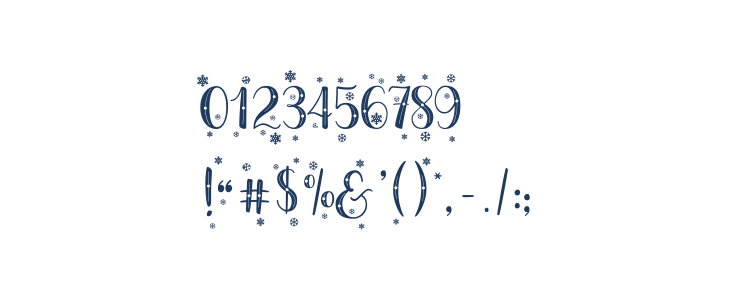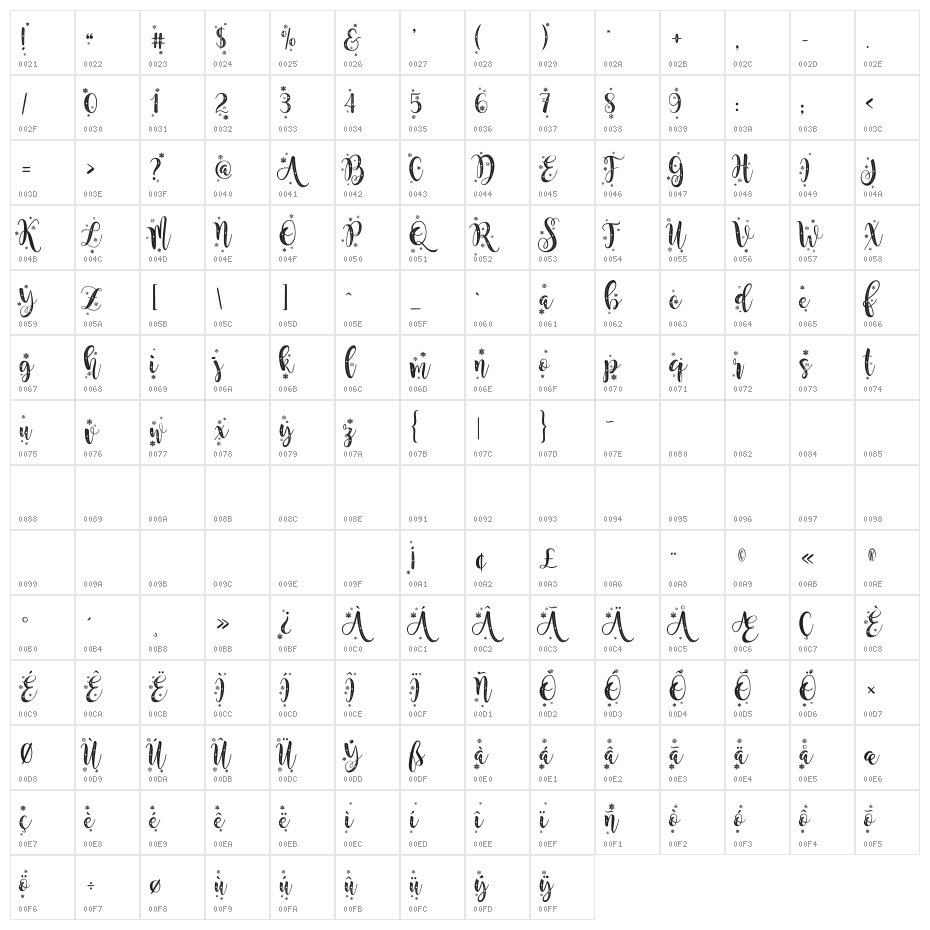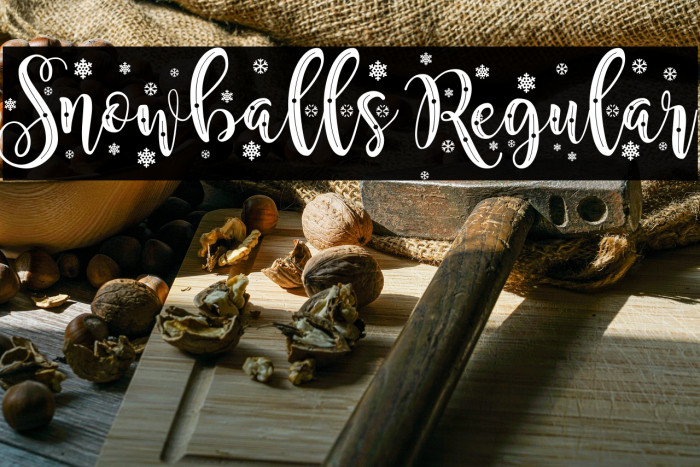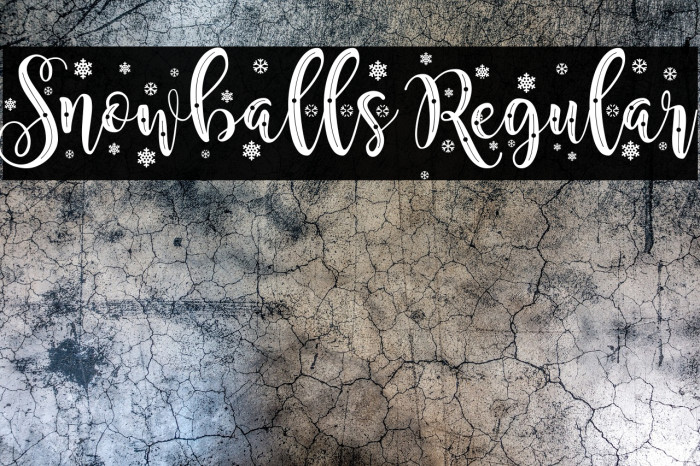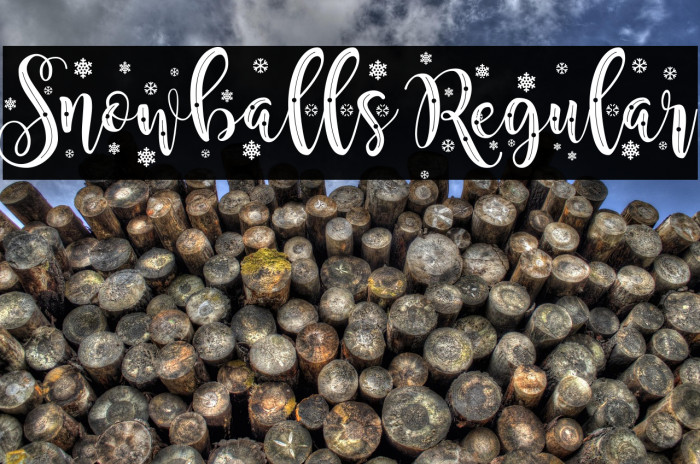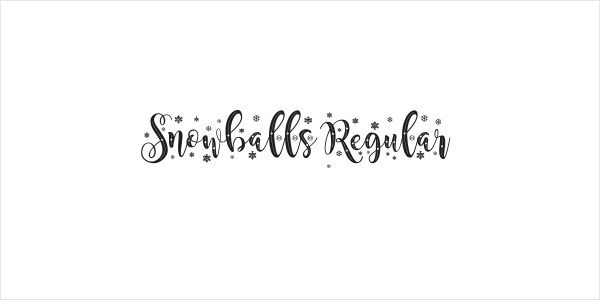
Snowballs Regular Font
Snowballs Regular Description
This whimsical and festive typeface features a playful script style adorned with snowflake embellishments, creating a wintery, holiday-themed aesthetic. The letters are fluid and connected, with a decorative flair that adds a sense of movement and joy. Each character is uniquely designed with varying snowflake patterns, enhancing its charm and appeal. The font maintains a consistent flow, making it ideal for creative projects that require a touch of elegance and festivity. Its intricate details and artistic design make it stand out, perfect for capturing attention in seasonal designs.
| Use Case | Headlines, Logos, Decorative text |
| Proposed Projects | Ideal for holiday cards, festive invitations, winter-themed posters, and decorative branding. |